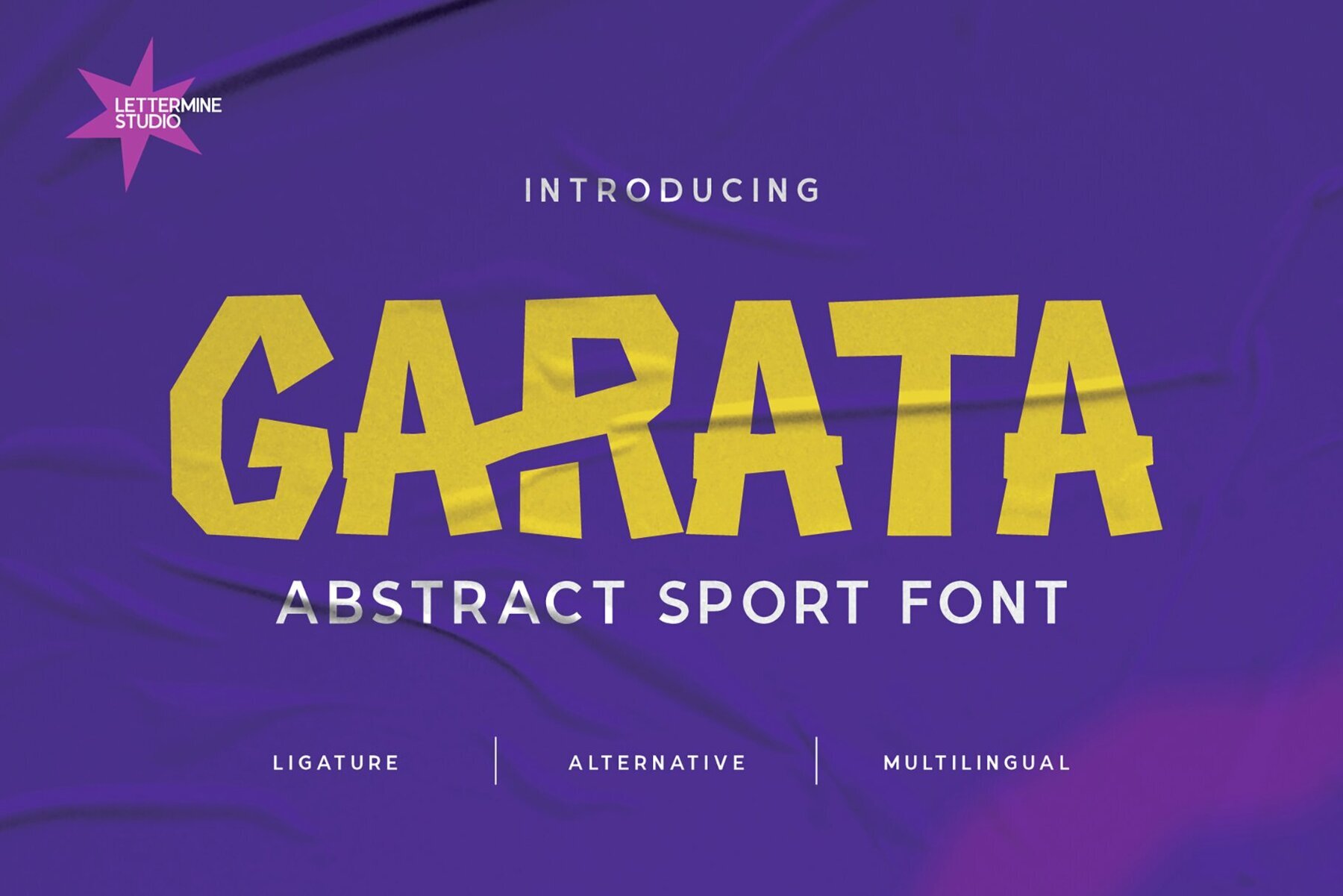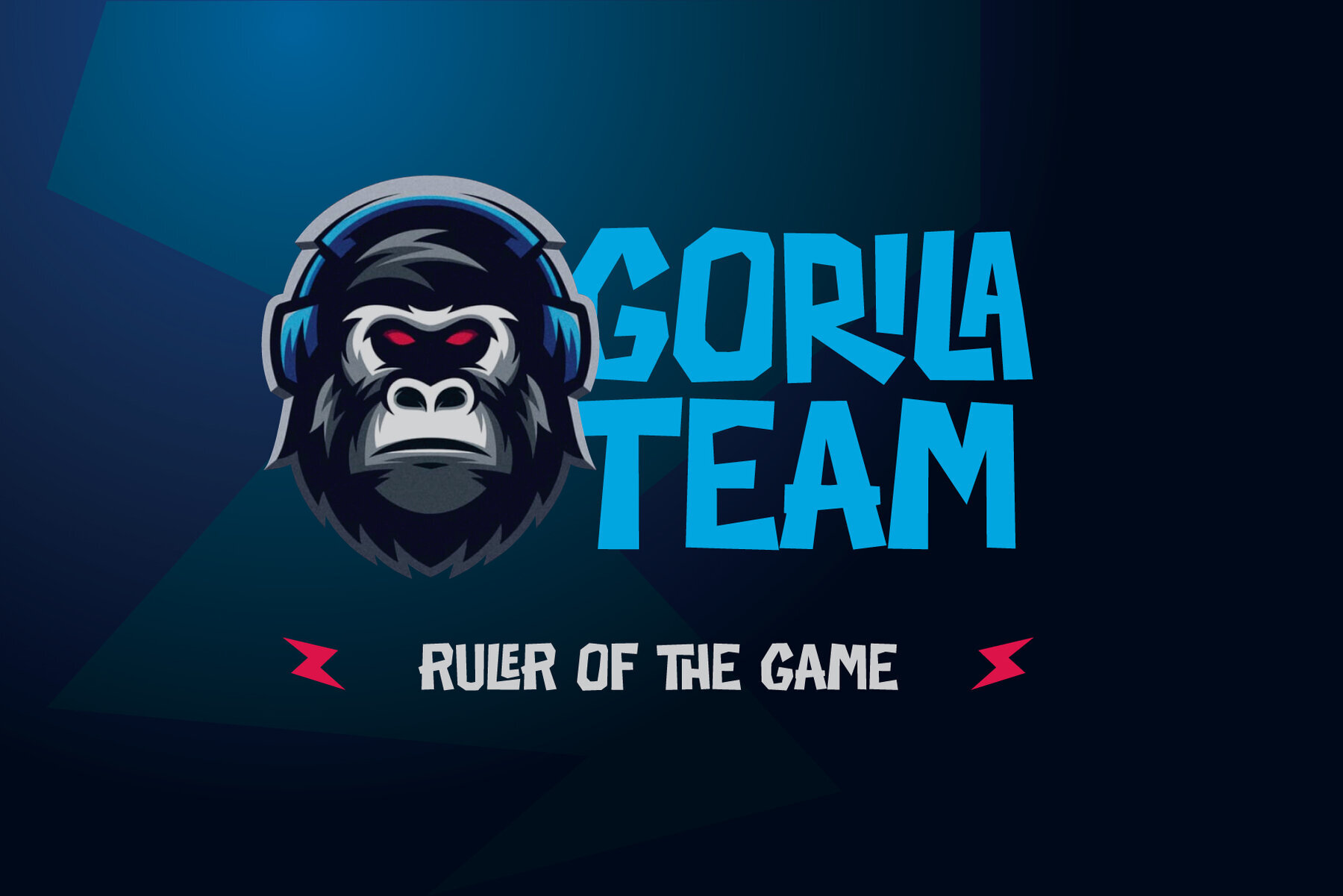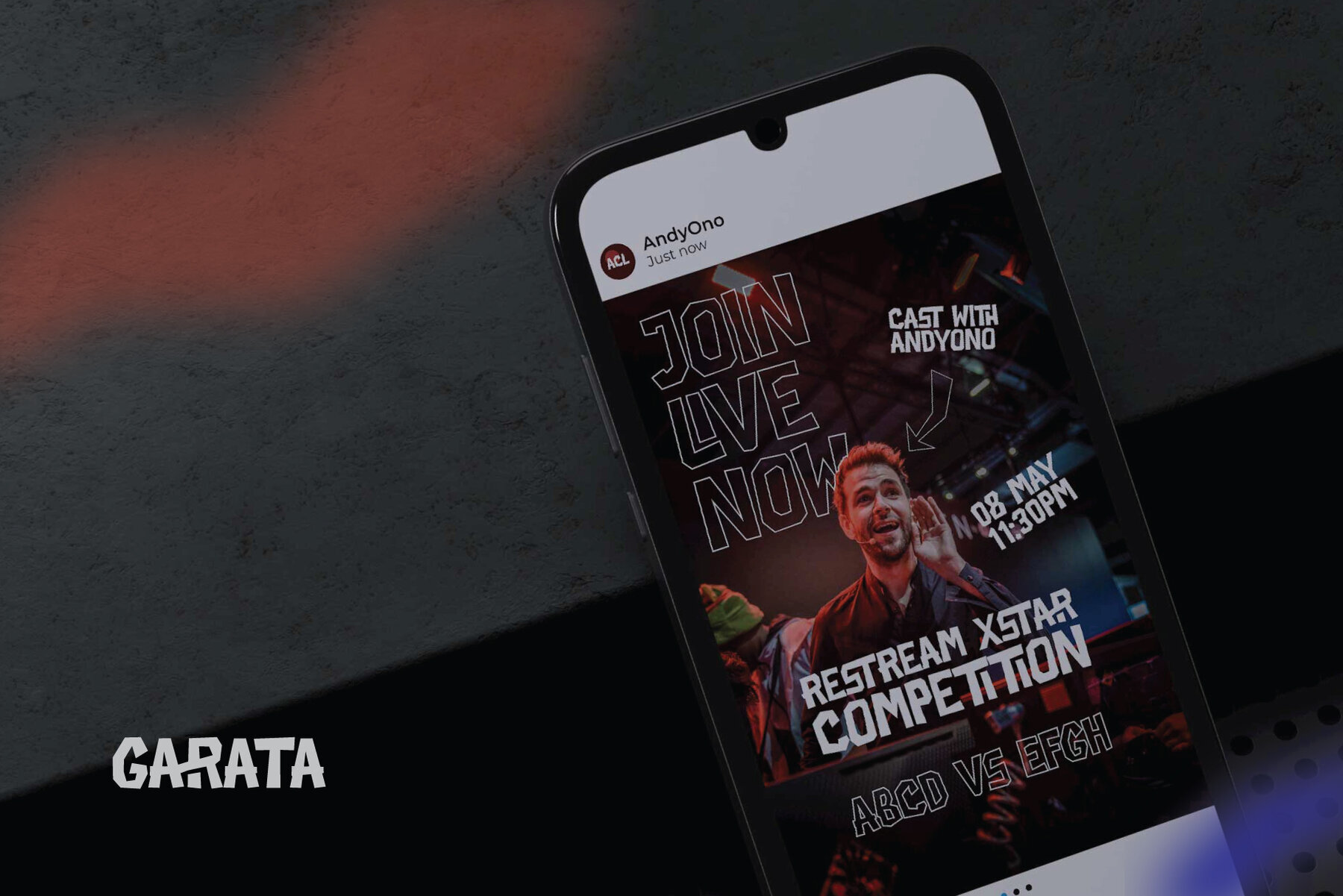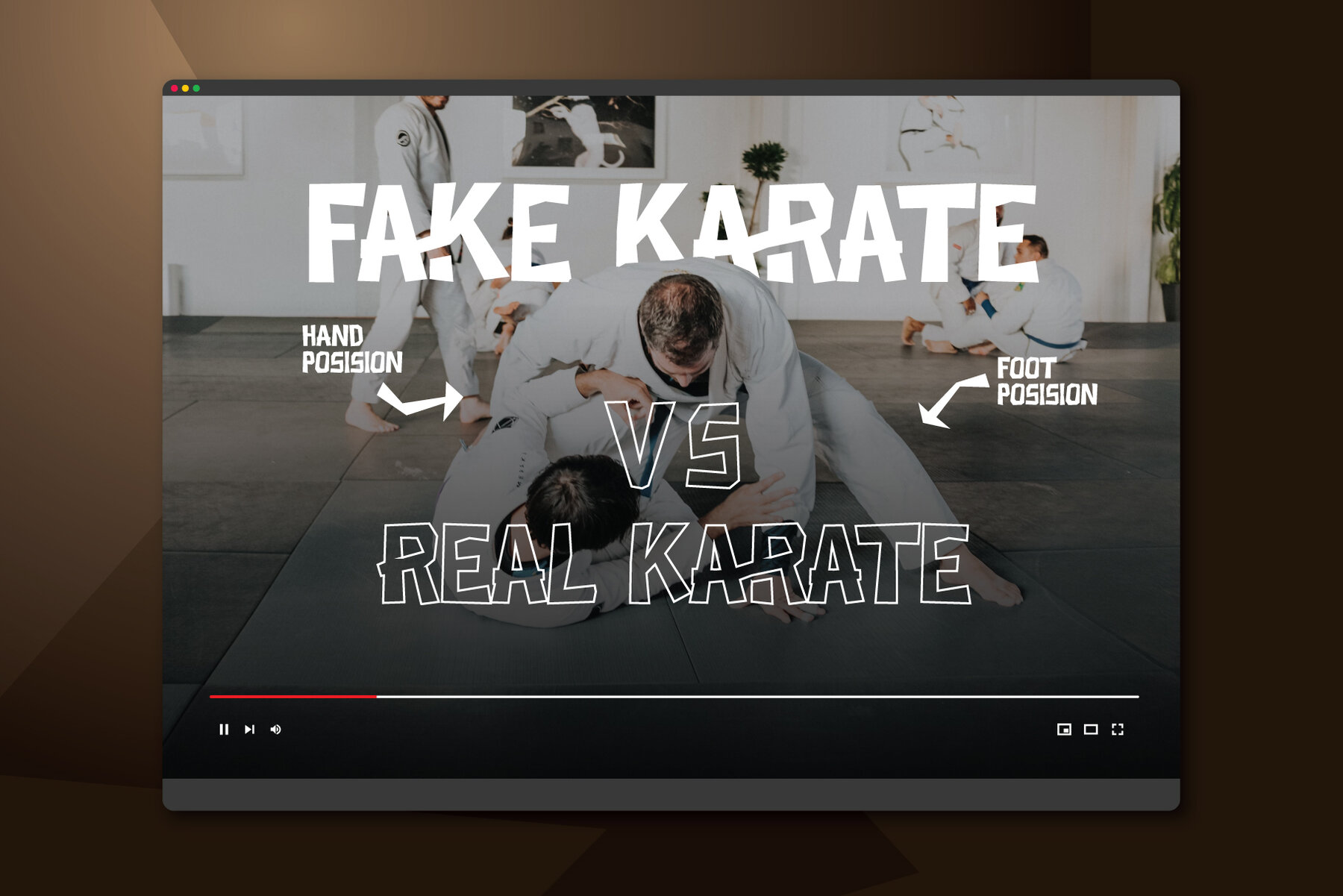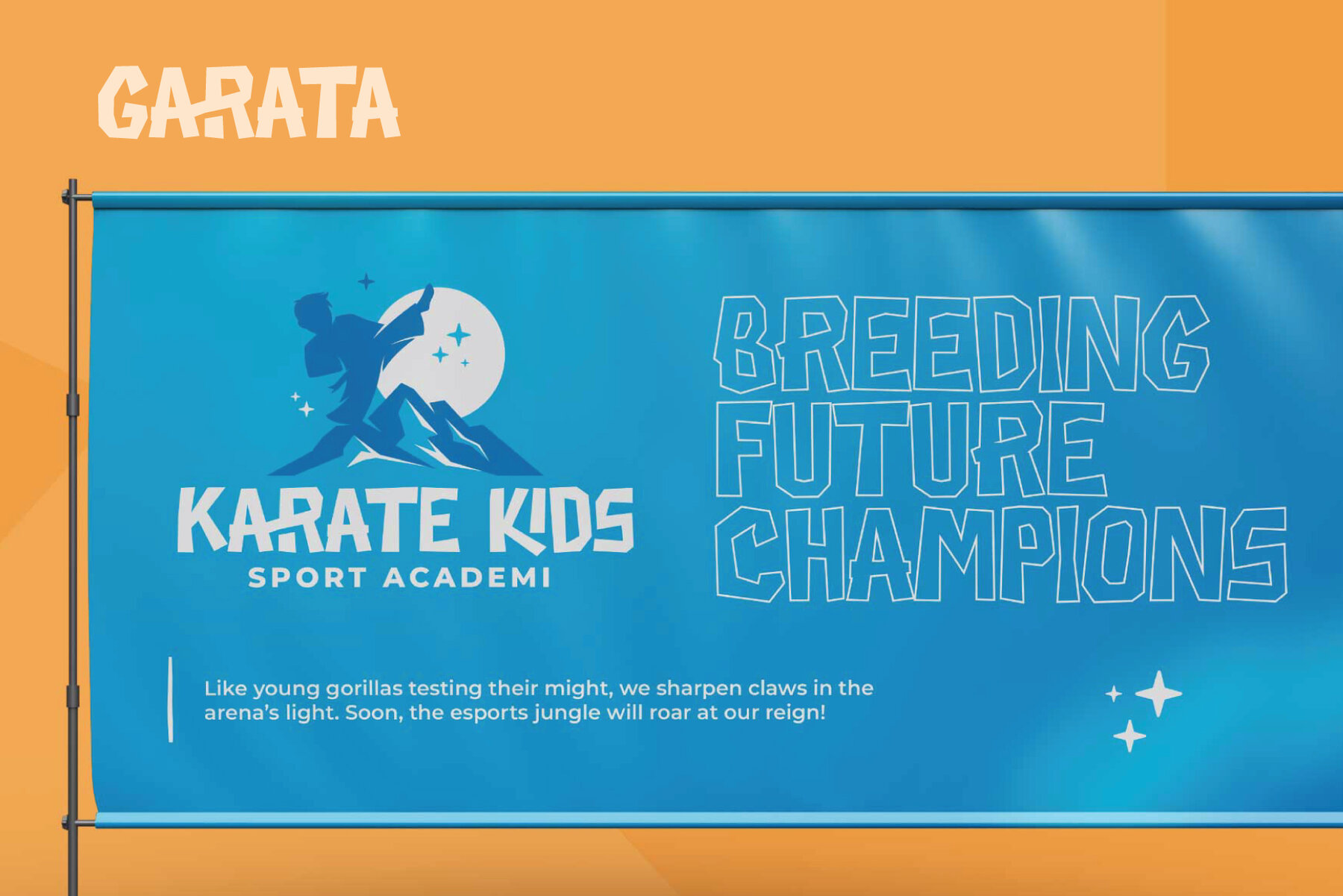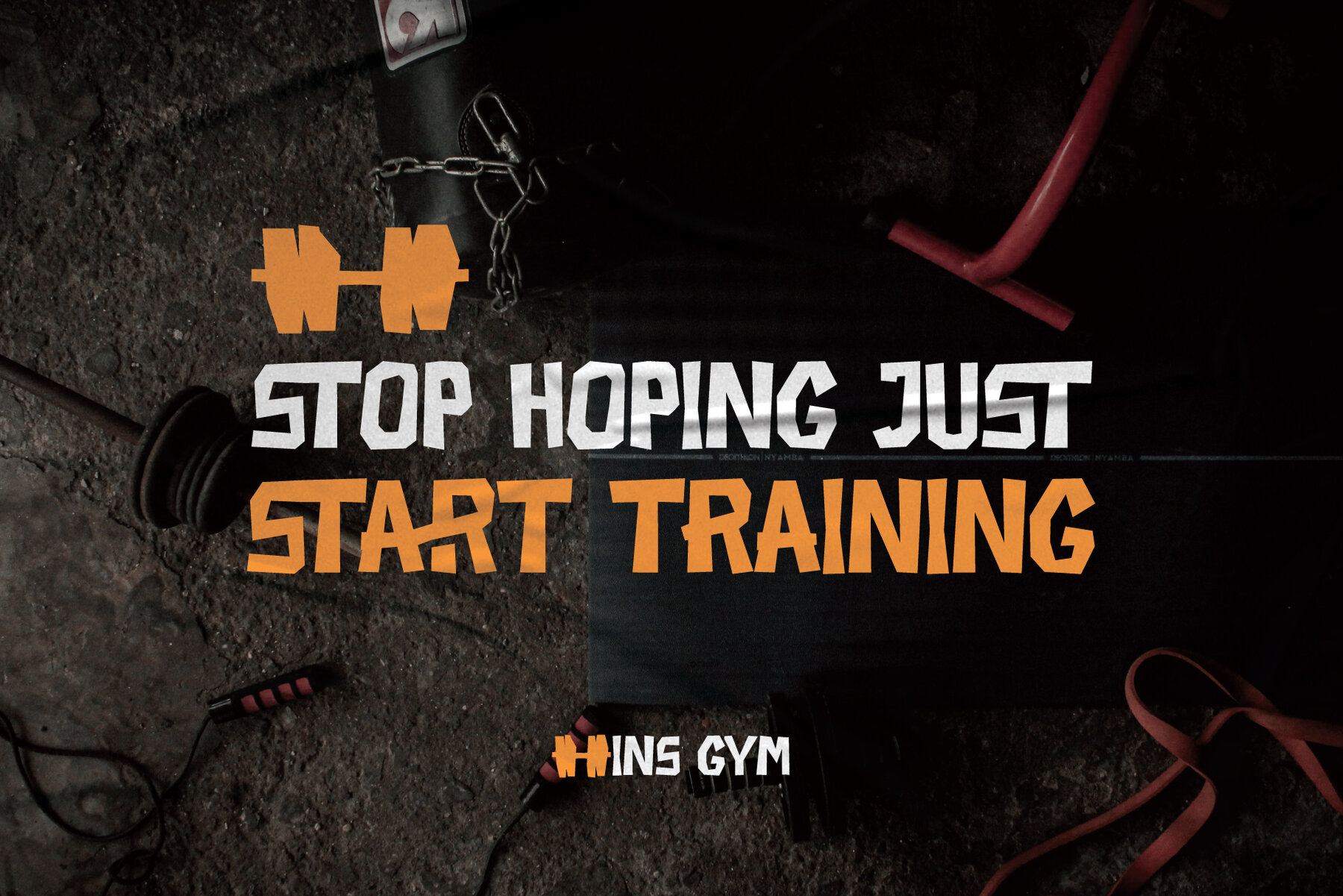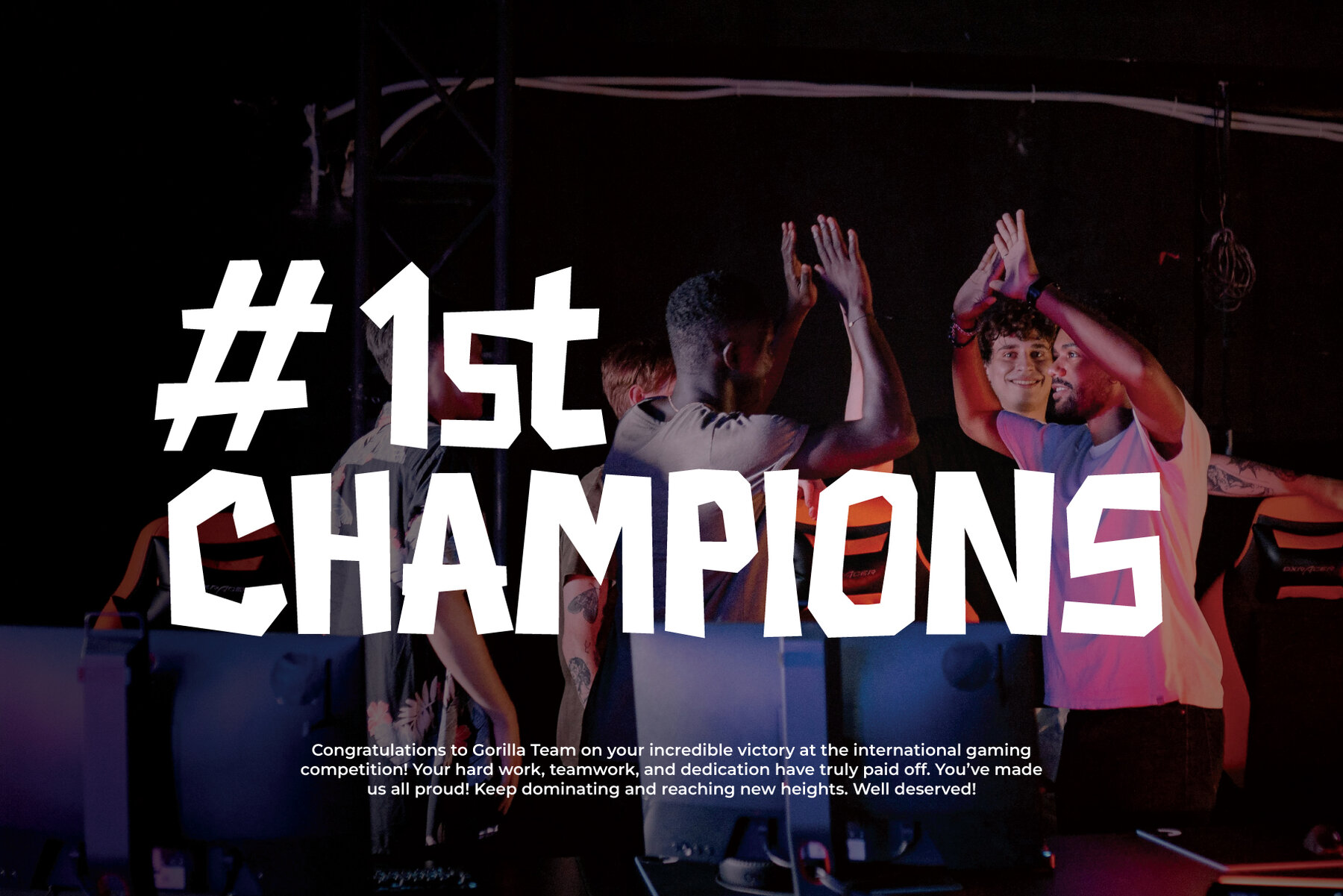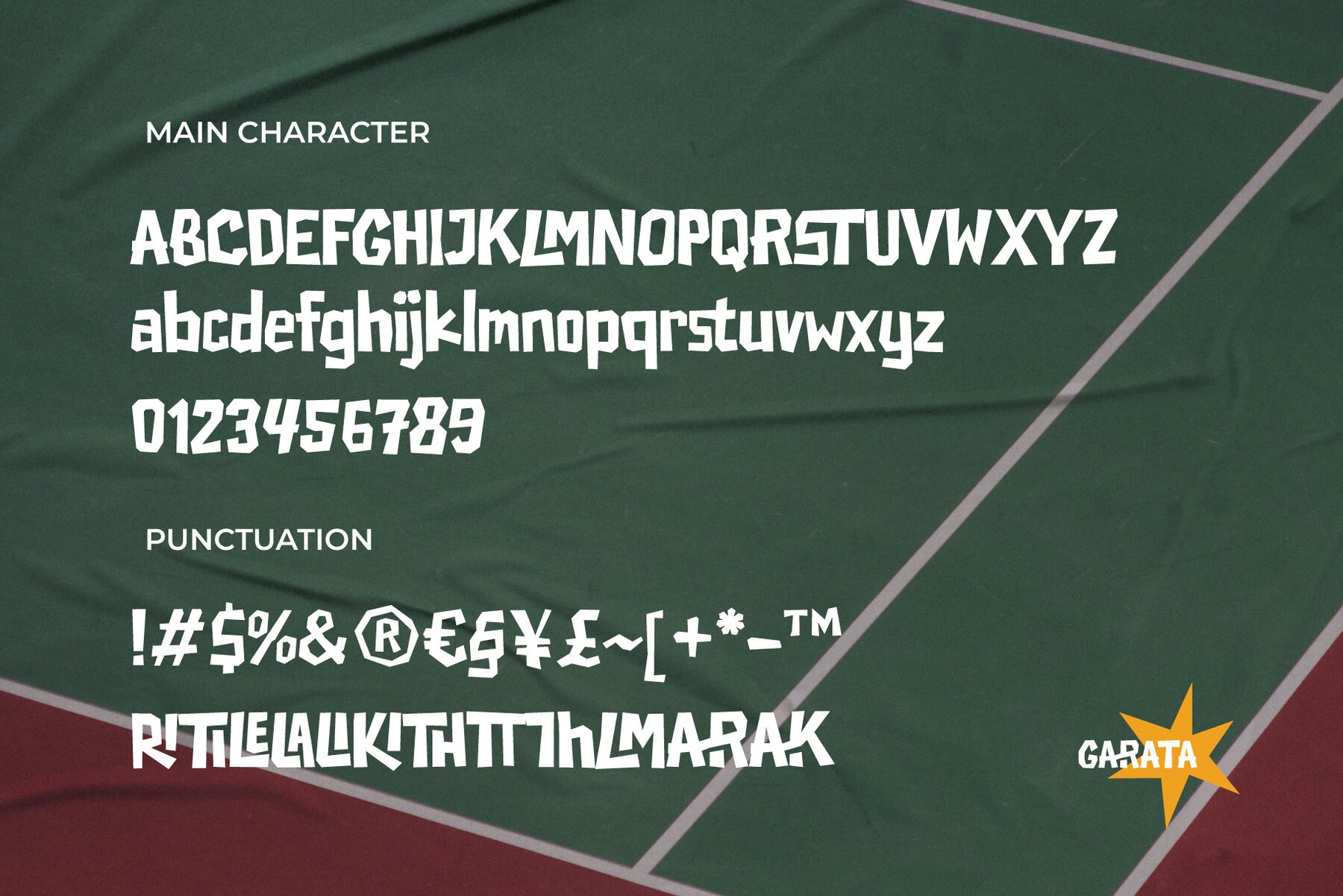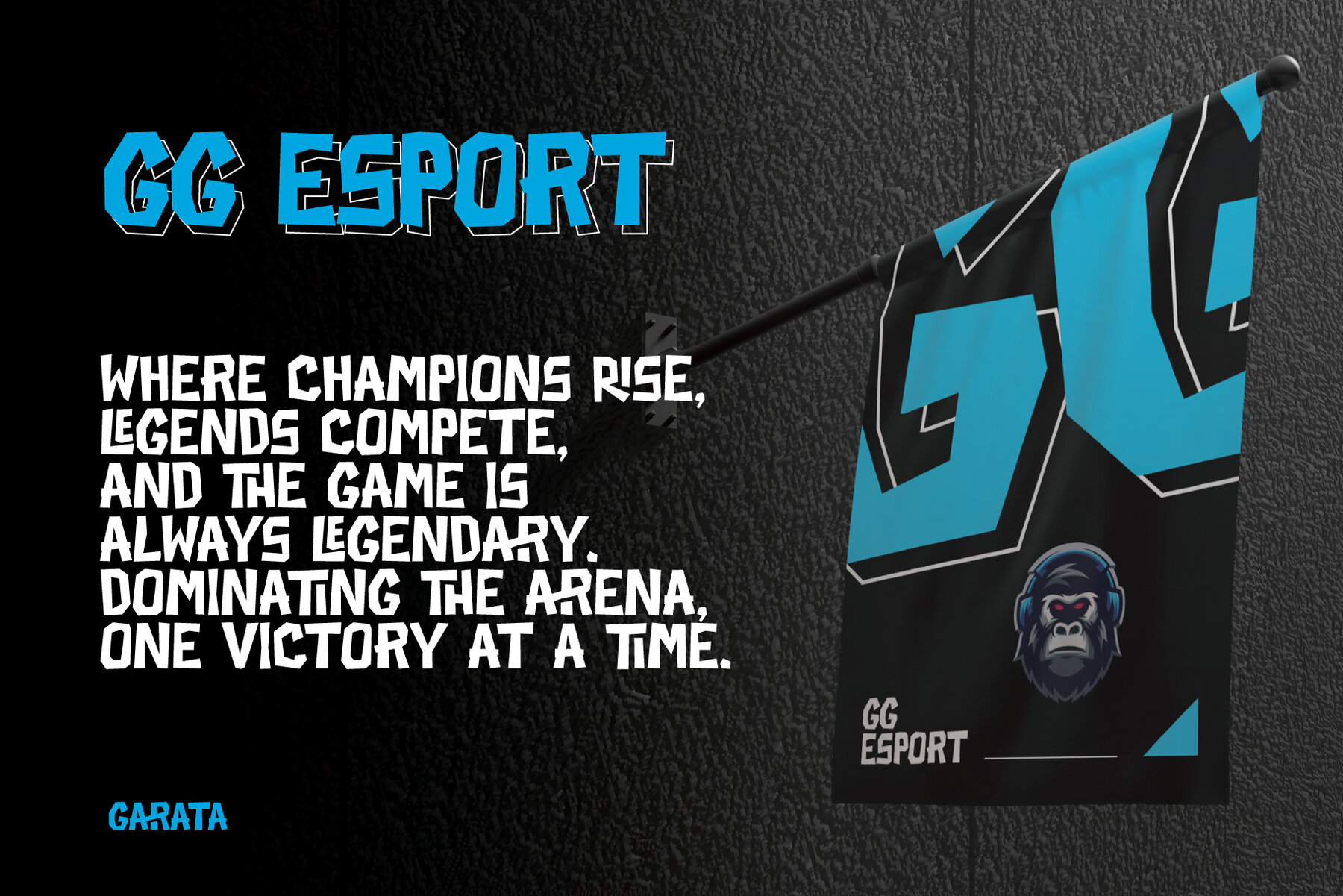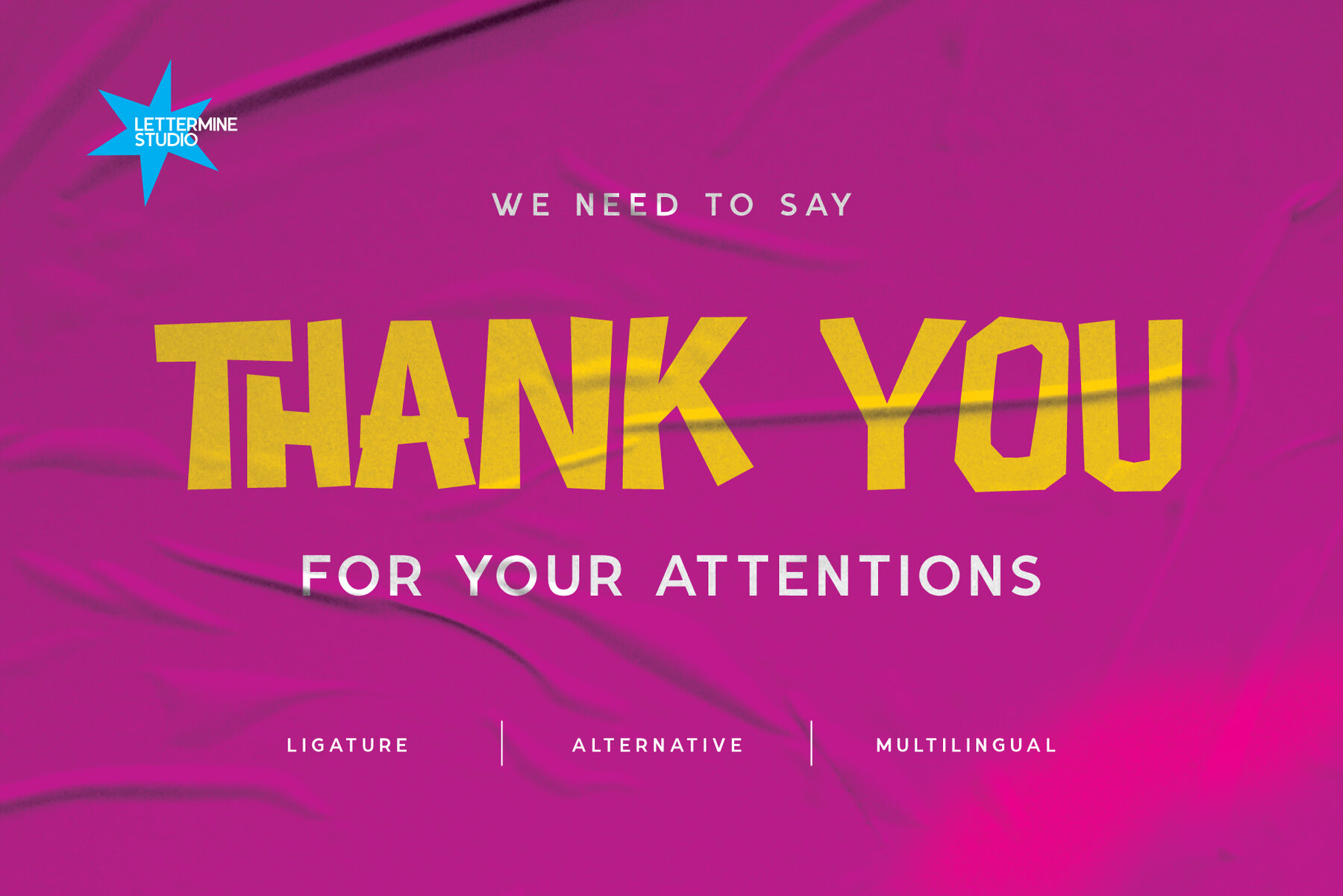
Garata Font
Garata
Garata by Lettermine Studio is a bold, abstract display font designed for energy and impact. Its distinctive angled forms and fragmented shapes exude a powerful, athletic vibe, making it an ideal choice for sports branding, esports teams, poster headlines, apparel design, and action-themed media. Perfect for crafting fierce team logos, edgy event posters, or contemporary streetwear brands, Garata offers unparalleled strength and visual appeal. Elevate your design projects with this dynamic typeface.Garata: Dynamic Sport Display Font